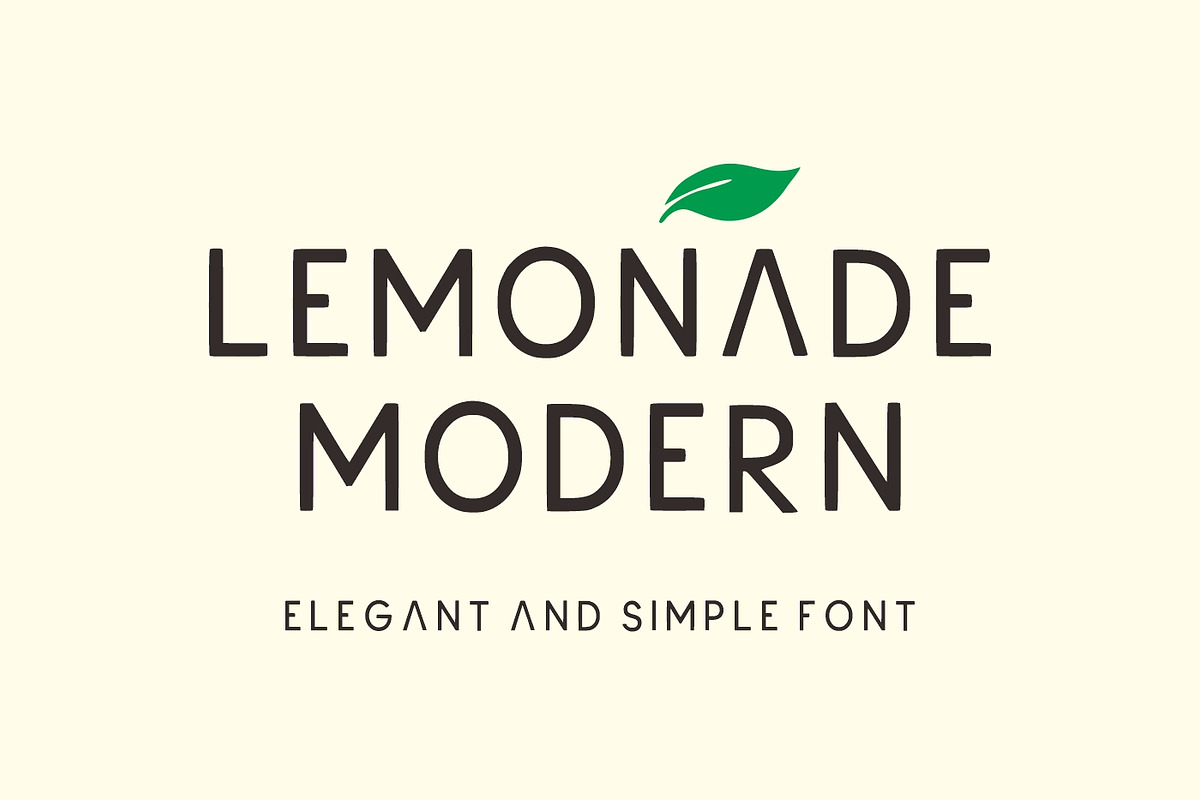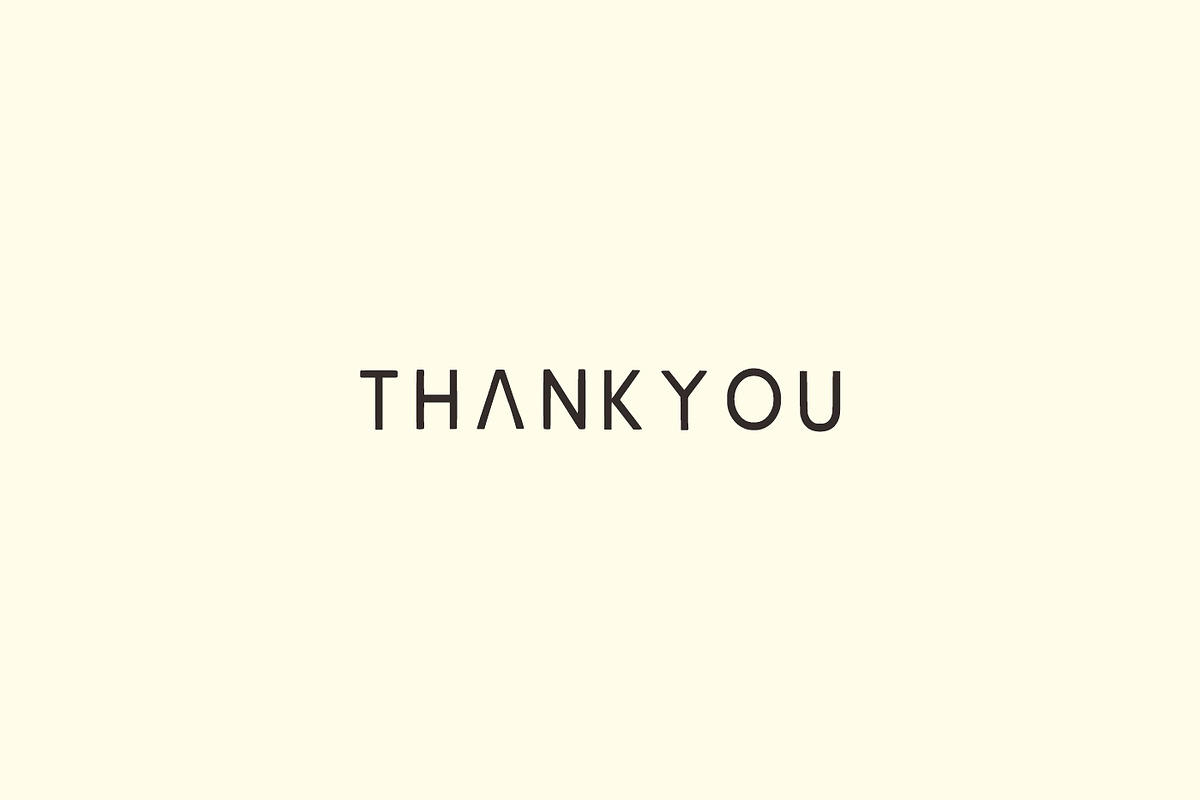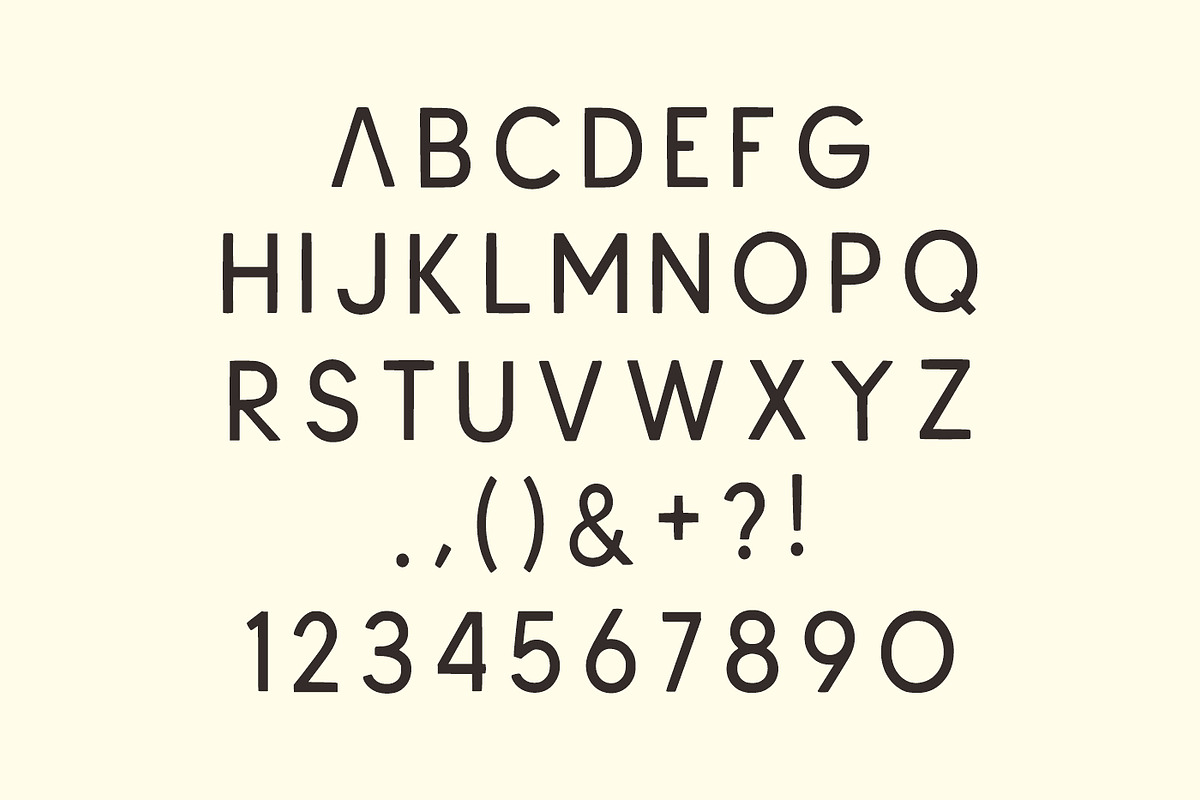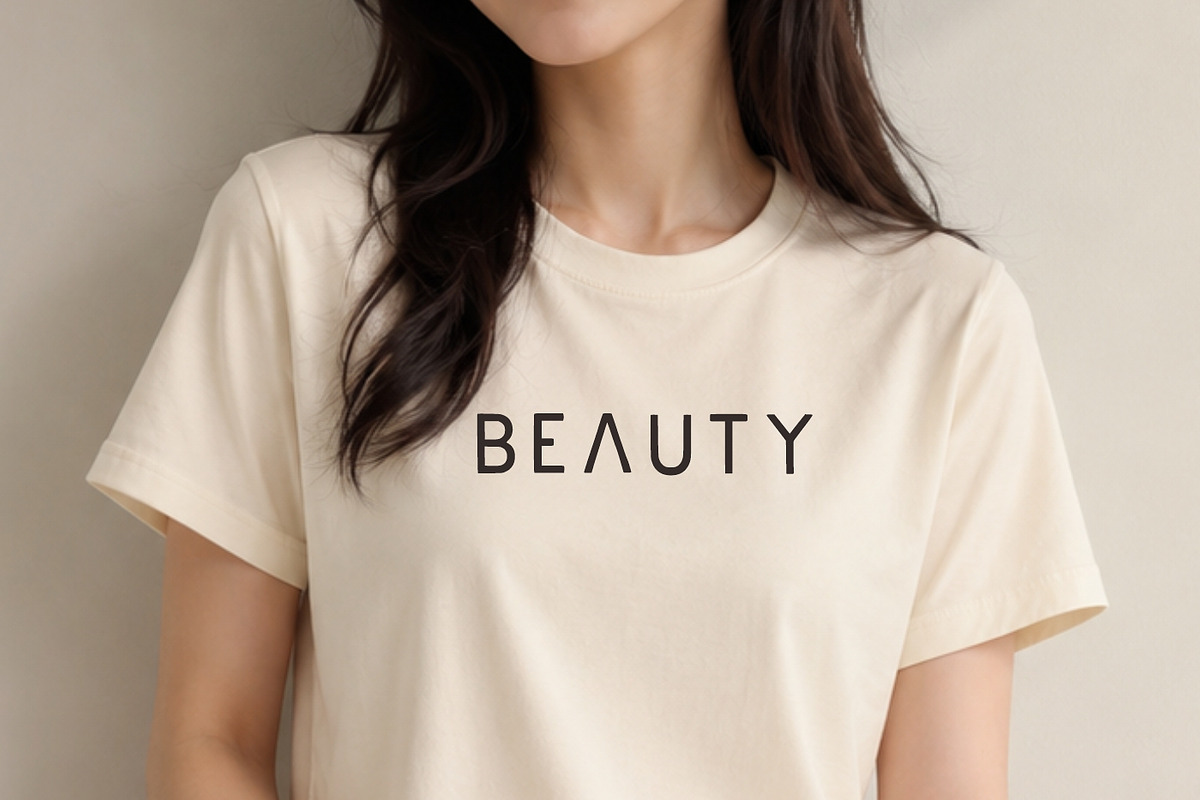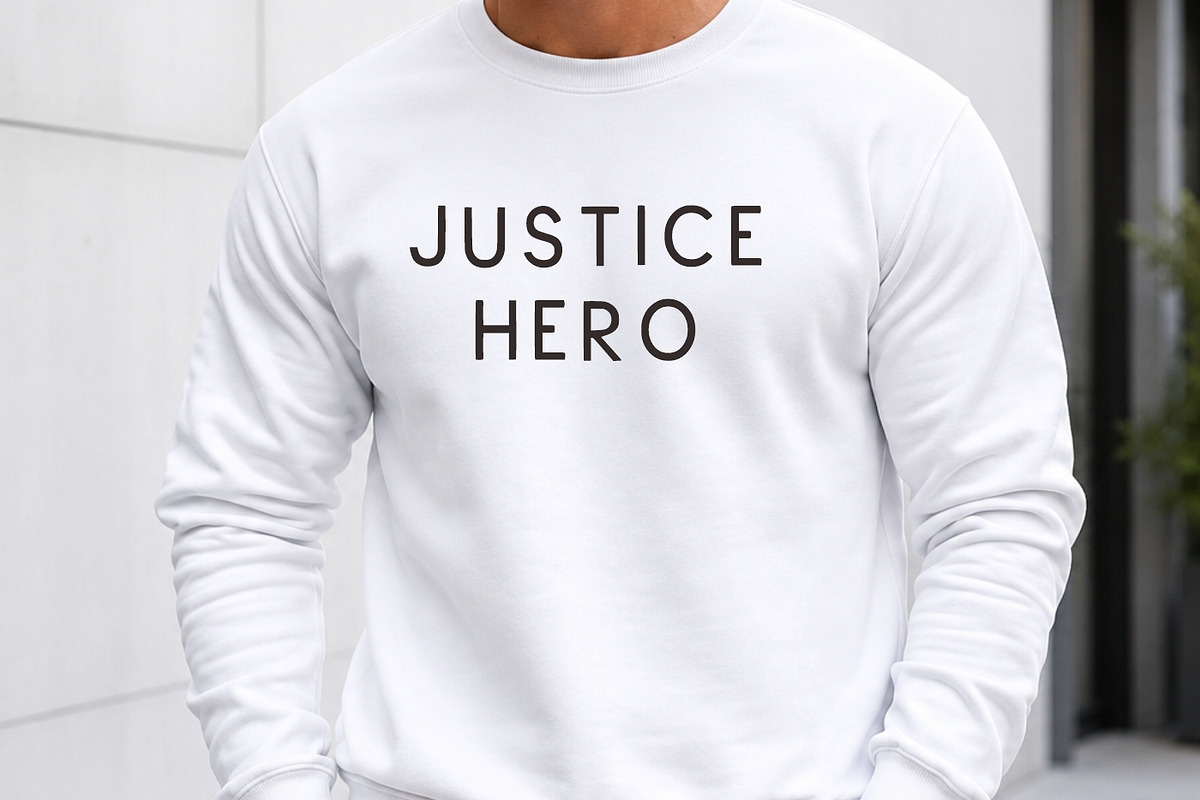
Lemonade Modern
Lemonade Modern is a clean, elegant, and minimalist sans serif font designed to bring a fresh and sophisticated look to your creative projects. Featuring smooth geometric letterforms, balanced proportions, and excellent readability, this typeface is perfect for both digital and print designs.
Whether you’re creating branding materials, logos, packaging, fashion labels, social media graphics, website headers, magazine layouts, invitations, or modern business presentations, Lemonade Modern delivers a timeless and professional appearance.
Its simple yet stylish aesthetic makes it highly versatile, allowing it to pair beautifully with script fonts or stand confidently on its own. Add a touch of elegance and contemporary charm to every design with Lemonade Modern.